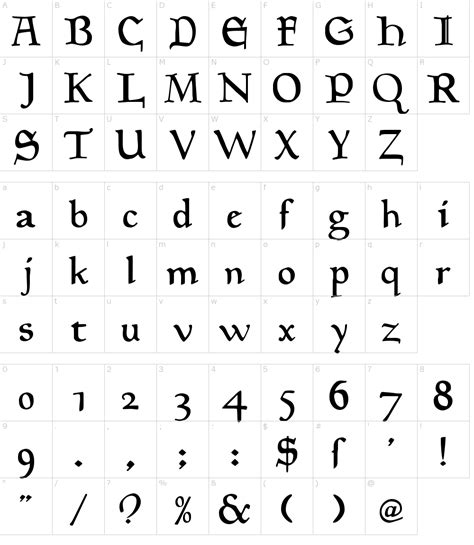
Medieval Fonts Generator. Simply type or copy the normal text into the blank text field. Medieval fonts will make your designs look like they are from the middle ages.
Medieval letters were popular in europe from about 1000 to 1400ad. Perfect for adding an authentic look and feel to your text, these fonts are sure to transport your readers back in time. Web « 1 » 4 fonts the most archaic letters inspired by the middle ages, time of castles, feudal lords and mercenaries. Once you click the generate button you’ll have a. Medieval letters were popular in europe from about 1000 to 1400ad. Download now and make a. Use our free font generator to create your own. Ready to personalize and share in facebook and. Web bring the middle ages to life with our free collection of medieval fonts. Web medieval font generator tool will let you convert simple and normal font style into your desired font. Simply type or copy the normal text into the blank text field.